RP Digital Type Foundry
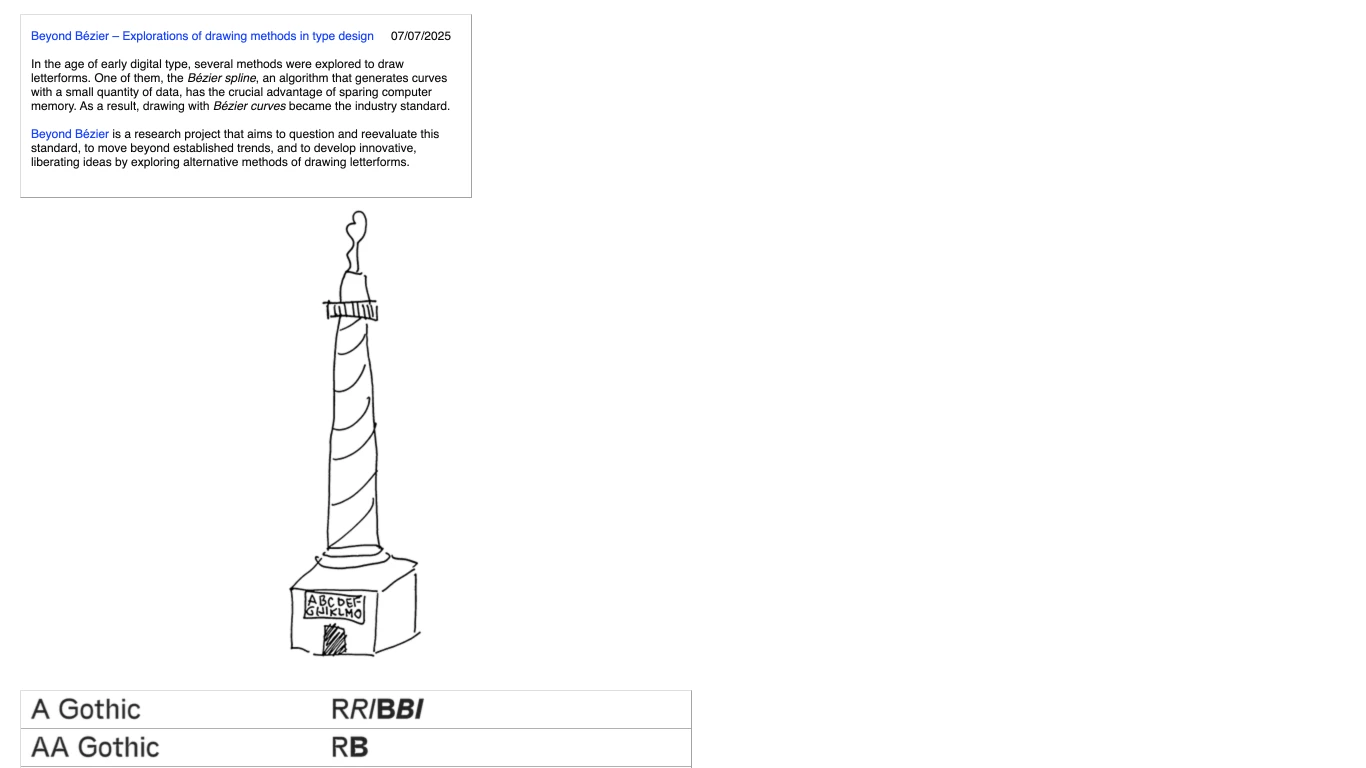
United Kingdom
2010
Radim Peško is the founder of RP Digital Type Foundry, established in 2010 (or 2009) and operated from London (with roots in the Czech Republic). A multifaceted designer, typographer, and educator, Peško creates both retail and custom typefaces notable for formal distinctiveness and conceptual depth. His foundry’s notable retail releases include Agipo (2011–2014), A‑Gothic (2020), Merkury (2001), Septima (monospaced, 2021), Fugue (2008), Lÿno (2009–2012), Sol (2004), Union (2012), and the new Renotype superfamily (2025).
His custom commissions span prestigious institutions like the Museum Boijmans van Beuningen, Stedelijk Museum Amsterdam, Aspen Art Museum, Fridericianum, Munch Museum, and brands such as McKinsey & Company and Paco Rabanne. Peško is also known for experimental projects like the Emergence typeface, born from collective intelligence and crowdsourcing. What makes RP Digital Type Foundry unique is Peško’s combination of scholarly research, conceptual playfulness, and technical precision—bridging historical reference and experimentation to deliver typefaces both distinctive and intellectually rich.